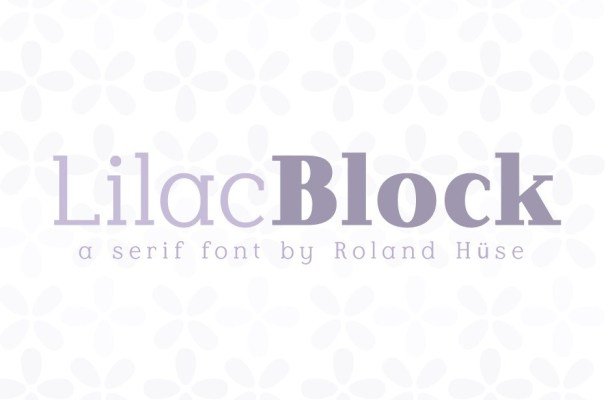
Lilac Block Serif Font
Lilac Block Serif Font is a creative and vibrant serif typeface with strong personality and wide choice of weights. It includes uppercase, lowercase, number, punctuation, symbols, with non-english characters.
Lilac Block makes it perfect for logo, greeting cards, posters, branding, name card, stationary, design title, blog header, quotes, typography, headlines, packaging, presentations, titles, magazines, headings, web layouts, advertising, invitations, packaging design, books, and nearly any creative design.